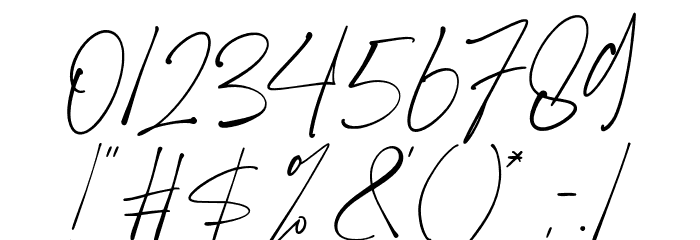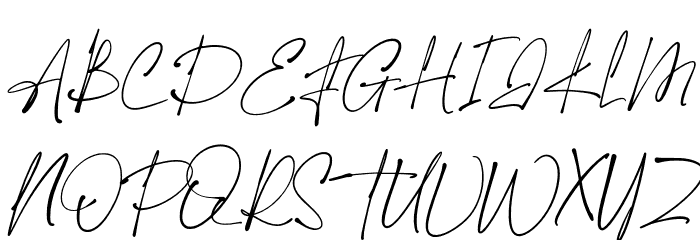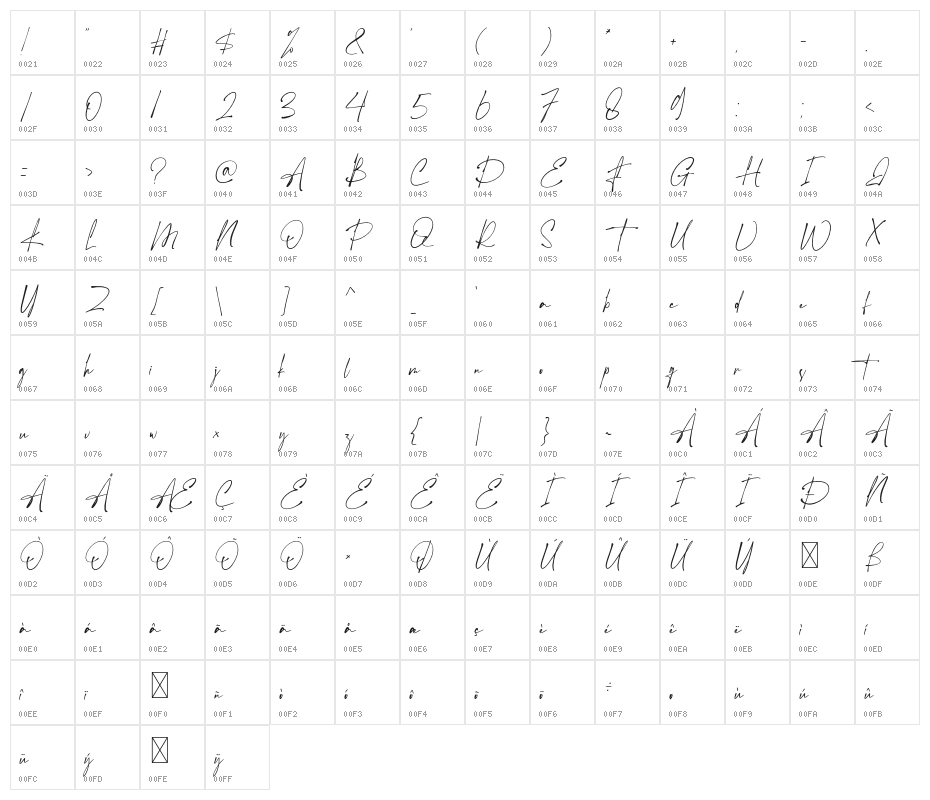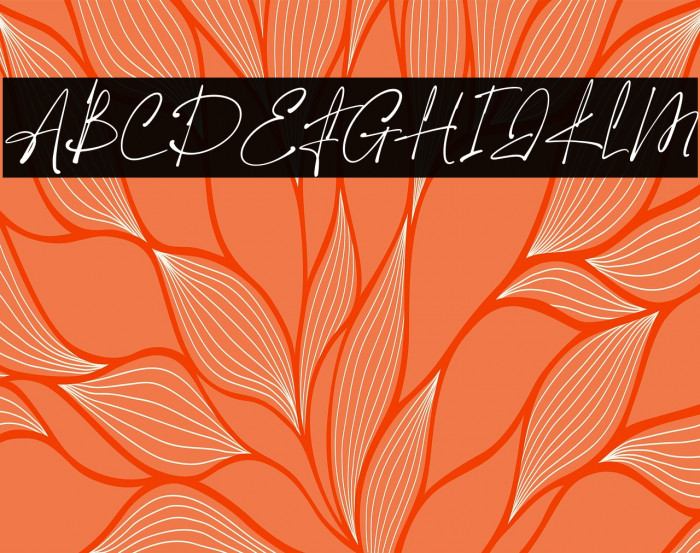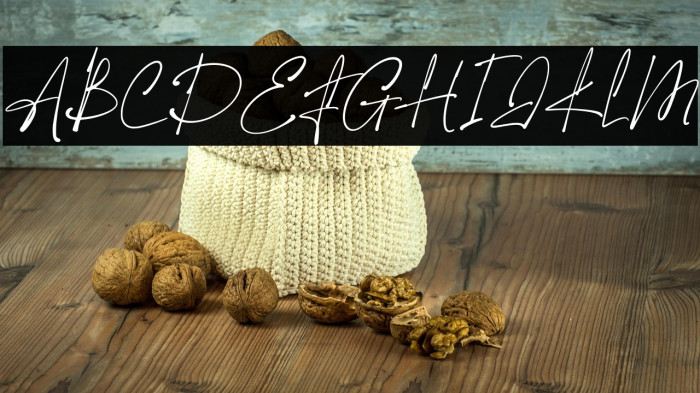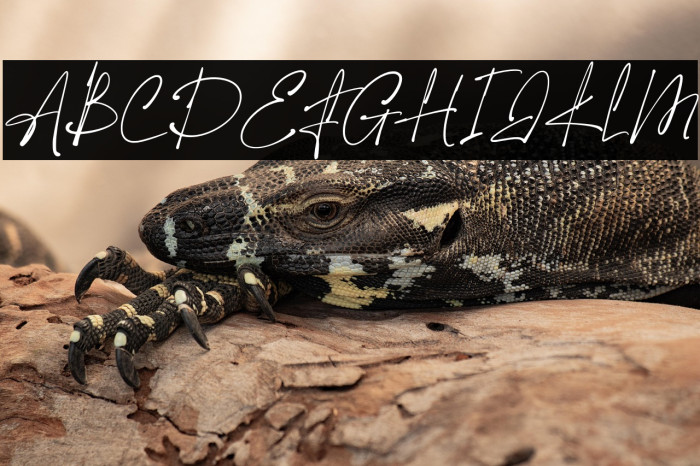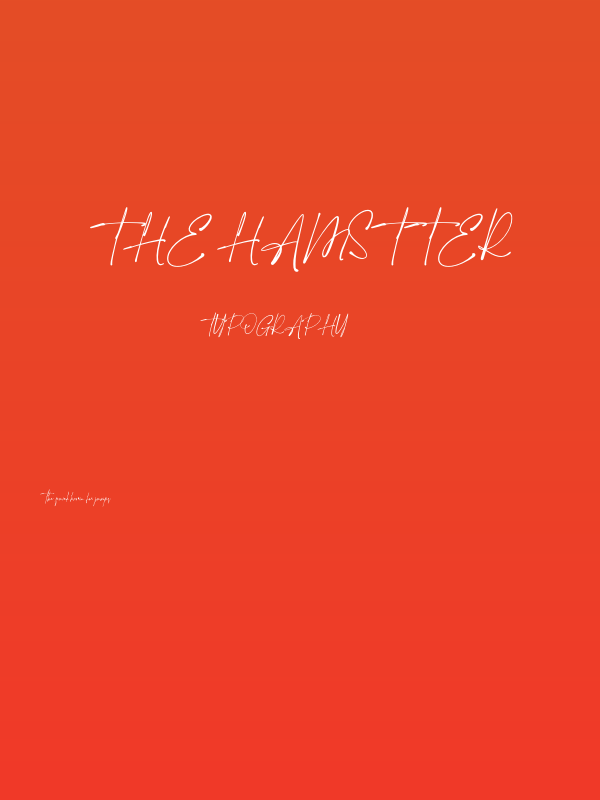
The Hamstter Font
✎ Script
The Hamstter Description
This font features a dynamic and flowing script style, characterized by its elegant and fluid strokes. The uppercase letters exhibit a sense of movement and energy, with elongated and slightly exaggerated forms that give a sense of spontaneity. The lowercase letters maintain a consistent style, offering a harmonious blend of curves and lines. The numerals are distinct and maintain the same flowing aesthetic, ensuring readability while adding a touch of sophistication. Special characters are seamlessly integrated, maintaining the overall aesthetic of the font. This font is ideal for projects that require a personal and artistic touch, such as invitations, branding, and creative designs.
| Categories | Script |
| Italic | Yes |
| Overall Style | Decorative |
| Use Case | Headlines, Logos, Invitations |
| Proposed Projects | Ideal for invitations, branding, creative designs, and artistic projects. |